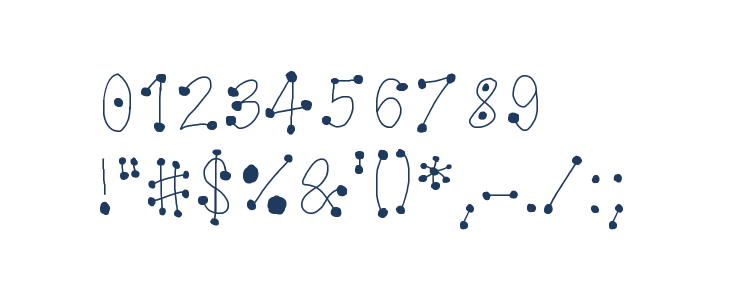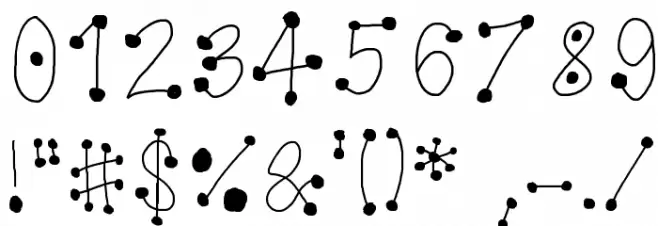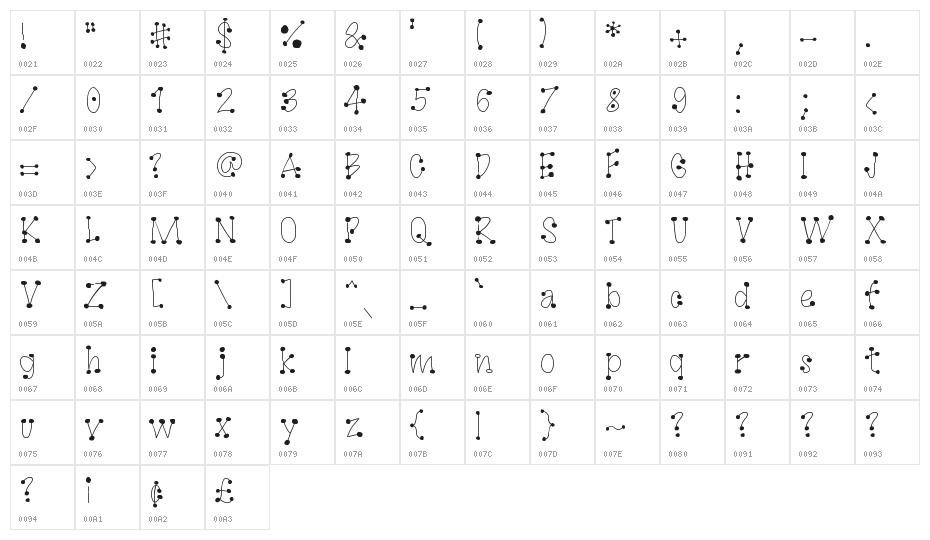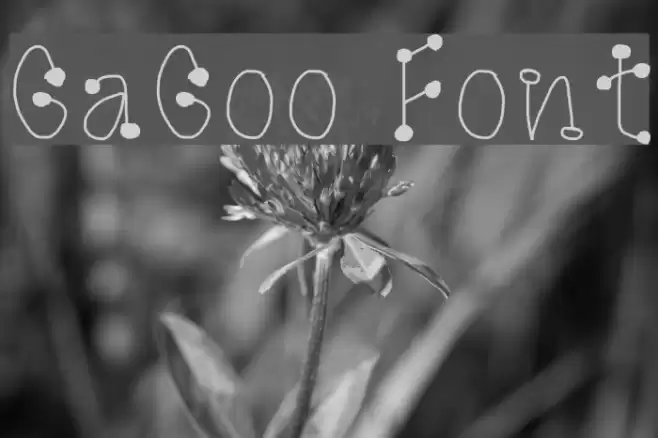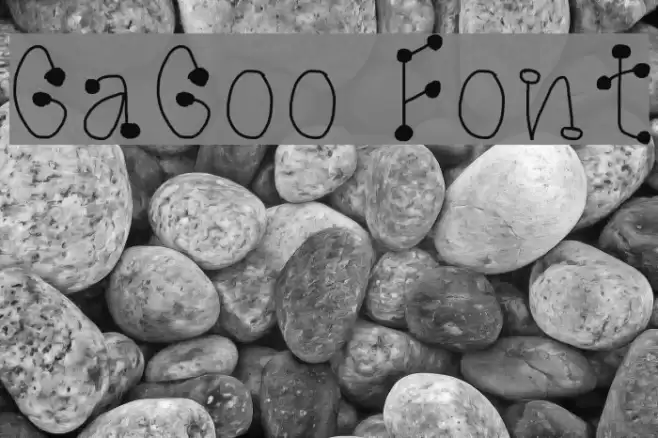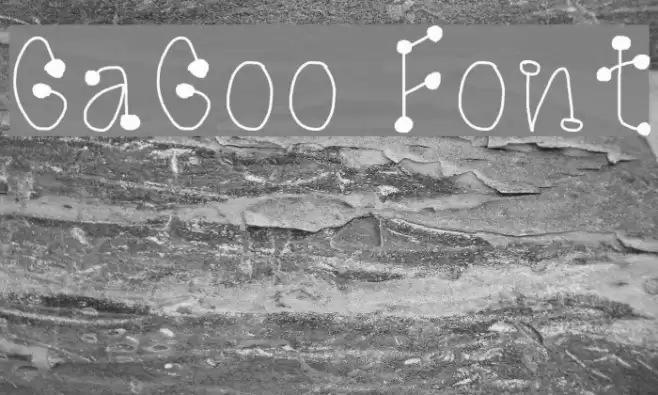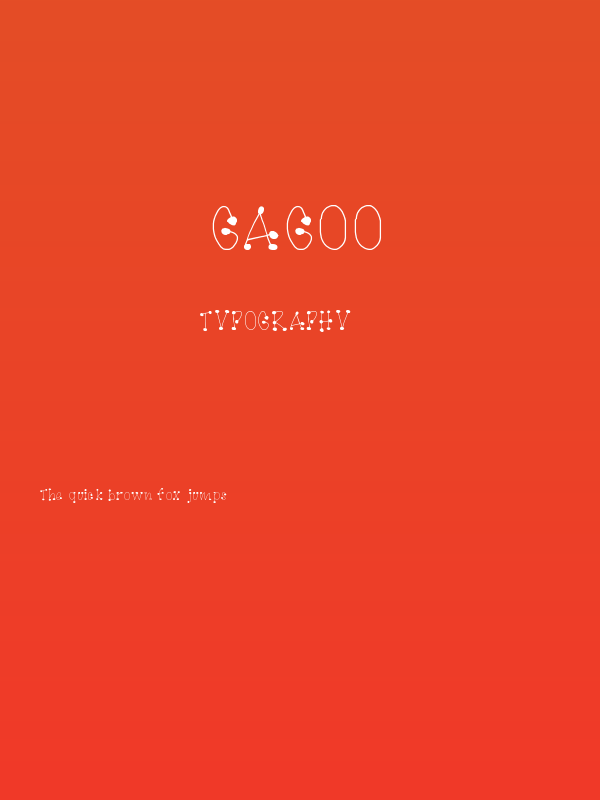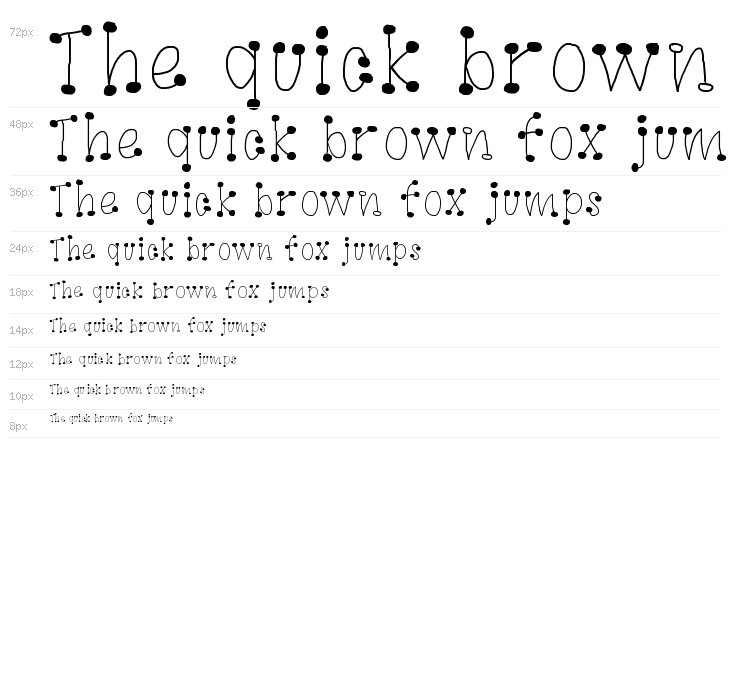
GaGoo Font
GaGoo Description
This playful and whimsical font features a unique design where each character is connected by dots, creating a sense of movement and fun. The letters are rounded and slightly irregular, giving them a hand-drawn appearance. The uppercase and lowercase letters maintain a consistent style, with the dots adding a decorative touch. Numbers and special characters follow the same playful theme, making the font suitable for creative projects. The overall aesthetic is casual and friendly, perfect for capturing attention in a lighthearted way.
Overall StyleWhimsical, Playful
Proposed ProjectsIdeal for children's books, playful branding, party invitations, and creative posters.